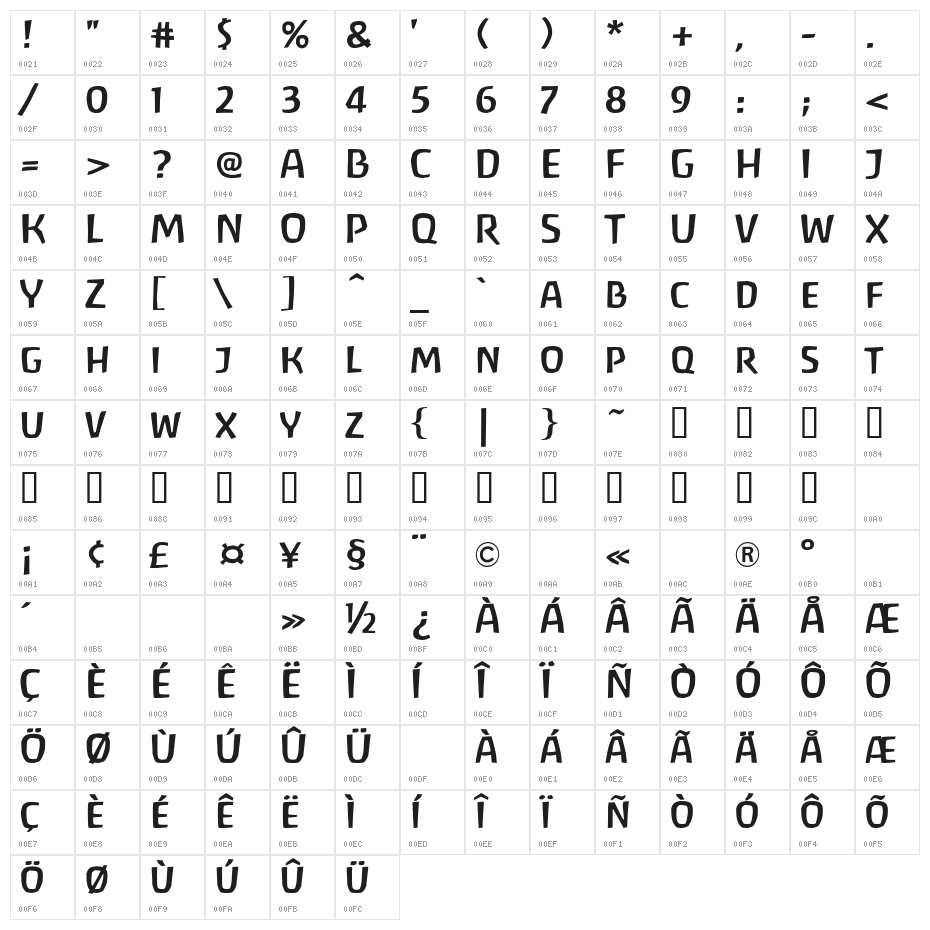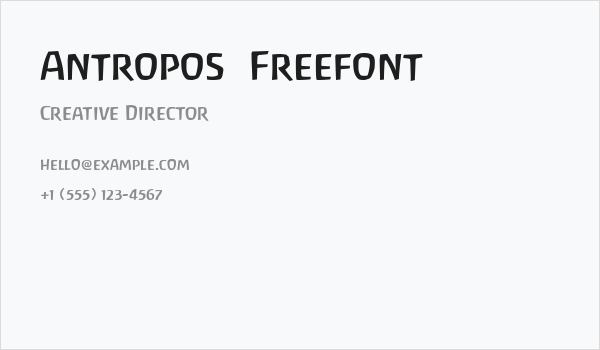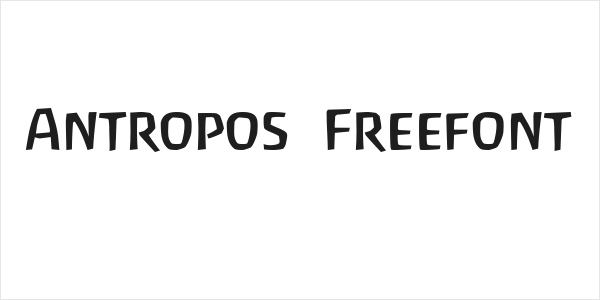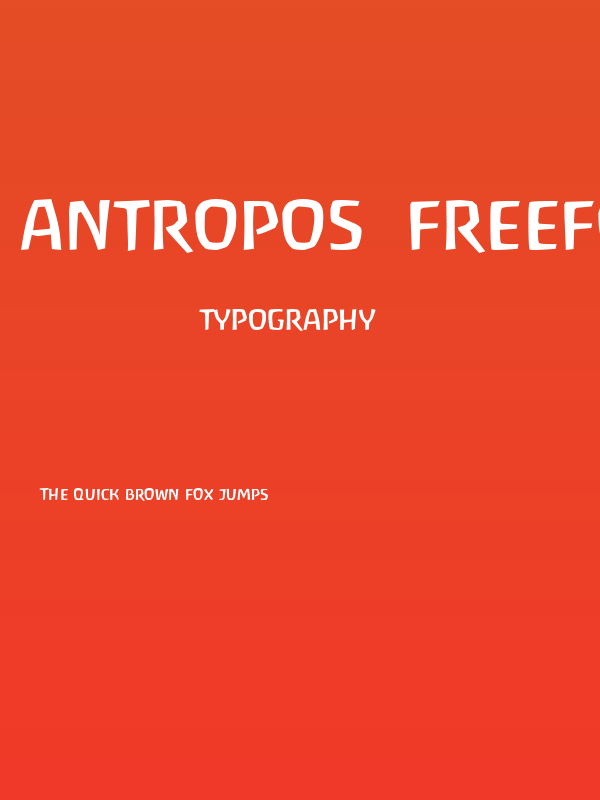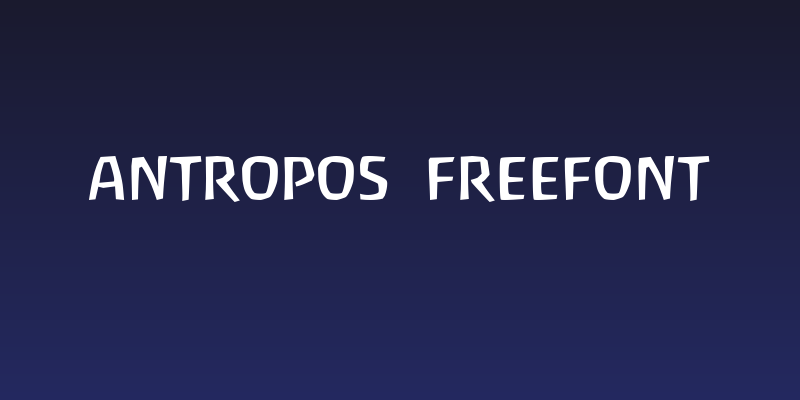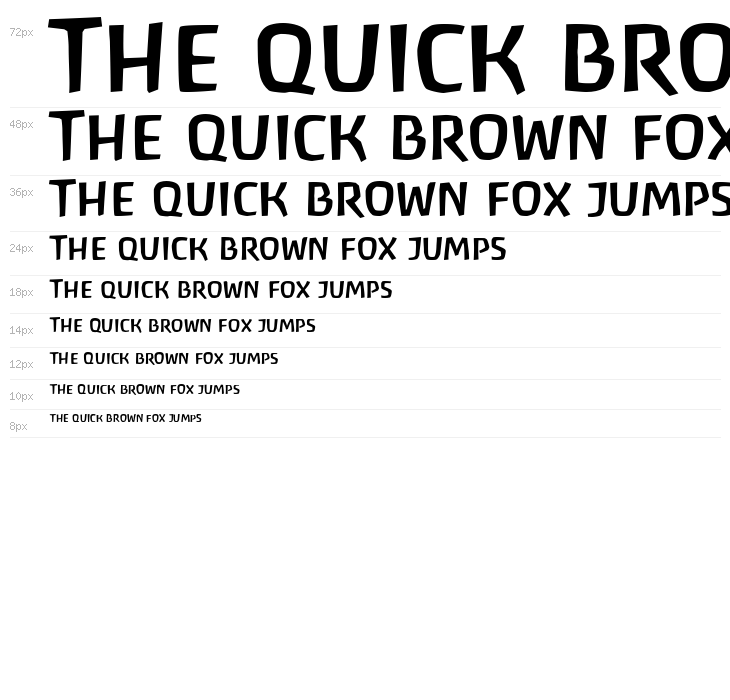
Antropos Freefont Font
Antropos Freefont Description
This font features a bold and dynamic style with a slightly irregular and hand-drawn appearance. The uppercase letters are distinct with sharp angles and varying stroke widths, giving it a unique and artistic flair. The lowercase letters maintain a consistent style, complementing the uppercase with their own quirky charm. Numbers are bold and clear, making them easily readable. The special characters are designed to match the overall aesthetic, ensuring a cohesive look across all glyphs. This font's playful yet structured design makes it versatile for various creative applications.
| Proposed Projects | Ideal for posters, branding, packaging, and creative projects that require a distinctive and artistic touch. |